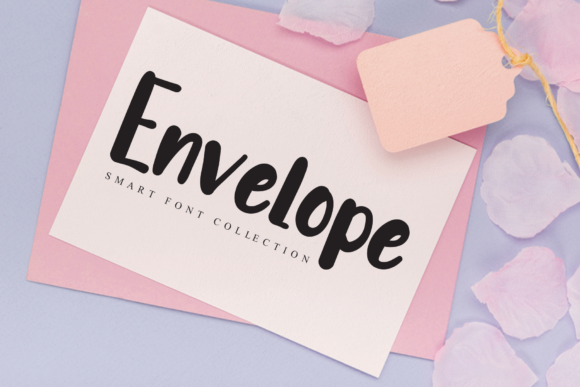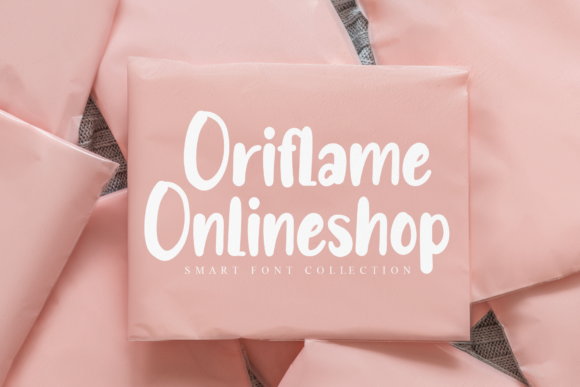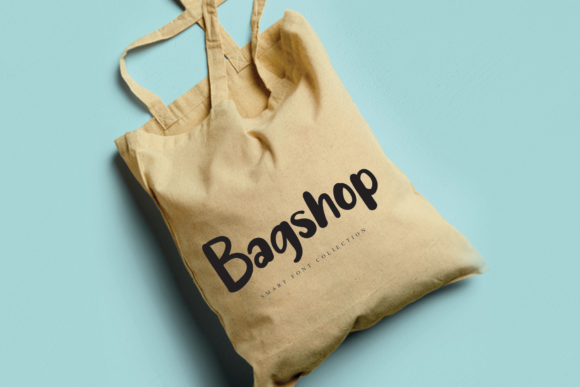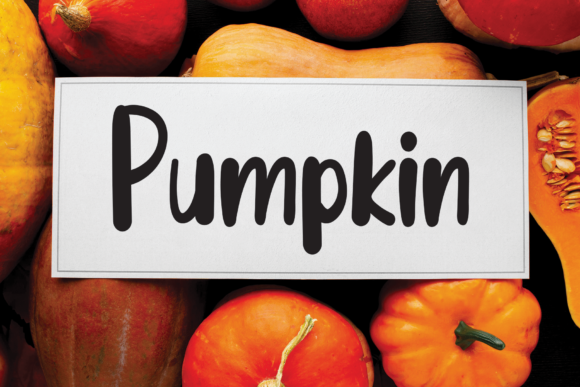
Meet the Font that Brings Designs to Life
Have you ever been working on a design project and felt like something is missing? You’ve got your colors, your images, and your message, but it’s just not quite coming together? That’s when I turn to my trusty font arsenal, and one font that always makes the cut is the Hellobaby Font. This bold and cute script font has a way of making even the most mundane designs come alive!
The Hellobaby Font is a go-to for designers looking to add a playful touch to their work. Its chunky letters and whimsical feel make it the perfect choice for everything from baby announcements to children’s book illustrations. Whether you’re working on a project that requires a touch of whimsy or just want to add some personality to your designs, the Hellobaby Font is a valuable tool to have in your kit.
Key Features of Hellobaby Font
- Unique Characteristics: Hand-drawn design with a playful, cursive style and a range of ligatures and swashes
Hellobaby Font Review
Overall, I think Hellobaby Font is a charming and playful typeface that can add a lot of personality to your designs ✨. Its rounded edges and friendly vibe make it perfect for kid-friendly projects, family branding, and even some lifestyle designs. The font is highly customizable, allowing you to adjust its weight, spacing, and other parameters to suit your needs.
The font family includes a range of styles, from regular to bold, and even some fun alternatives like italics and bold italics ✨. This variety gives you a lot of creative freedom to experiment with different looks and feels. Additionally, the font is relatively easy to read, making it suitable for body text as well as headlines.
- Rounded edges and friendly vibe
- Range of styles (regular, bold, italics, bold italics)
- Easy to read
- May not be suitable for formal or professional designs
- Some characters may be too cursive or whimsical for certain contexts
- Not ideal for small text sizes
- Lack of bold and italic variants for certain characters
Overall, I’d say Hellobaby Font is a solid choice for designers looking for a playful and customizable typeface ✨. While it may have some limitations, its strengths make it a great addition to any design toolbox.
The Hellobaby font is ideal for creating whimsical and playful designs. To get the most out of it, try combining it with bright colors and bold graphics.
- Birthday invitations
- Children’s party decorations
- Infant product branding
Alternative Fonts to Hellobaby Font
The Great Vibes Font is a playful, handwritten font that works well for casual and creative projects. It is ideal for use in headings, titles, and short phrases where a personal touch is desired. Compared to Hellobaby Font, Great Vibes Font has a more relaxed and carefree feel, making it suitable for projects that require a friendly and approachable tone.
The Cream Soda Font is a modern, cursive font that is perfect for projects that require a touch of elegance and sophistication. It is suitable for use in headings, titles, and short paragraphs where a sense of refinement is desired. Compared to Hellobaby Font, Cream Soda Font has a more polished and refined feel, making it ideal for high-end projects and branding.
The Lobster Font is a bold, cursive font that works well for projects that require a sense of drama and flair. It is ideal for use in headings, titles, and short phrases where a sense of excitement and energy is desired. Compared to Hellobaby Font, Lobster Font has a more dramatic and attention-grabbing feel, making it suitable for projects that require a strong call-to-action or a sense of urgency.